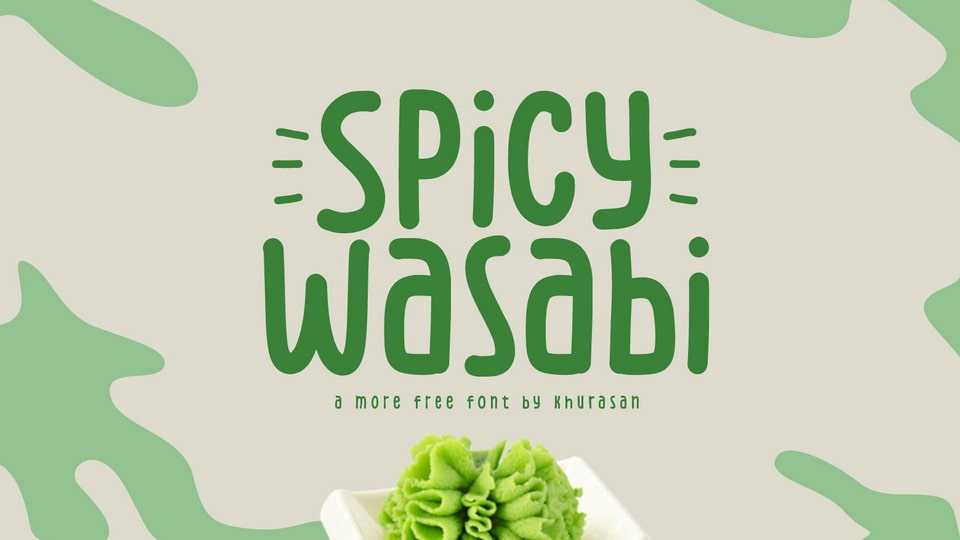
Download Spicy Wasabi font, a handwritten typeface that ignites a playful and funny personality in your designs. Spicy Wasabi features a charismatic and spirited design, with each letter embodying a sense of joy and fun.